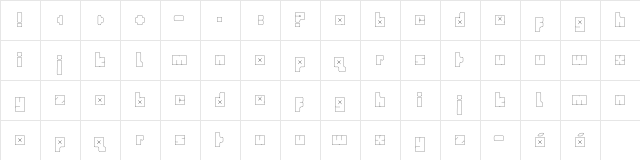
babybox Regular
| Designer | Tomasz Ulman |
Design Context for babybox Typeface
babybox is a composed and adaptable typeface that performs quietly and consistently across a wide range of design contexts.